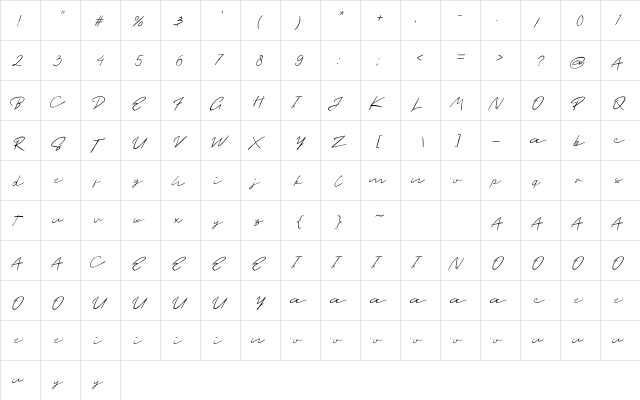
Yosarosa Regular
Design Context for Yosarosa Typeface
Yosarosa is a composed and adaptable typeface that performs quietly and consistently across a wide range of design contexts.